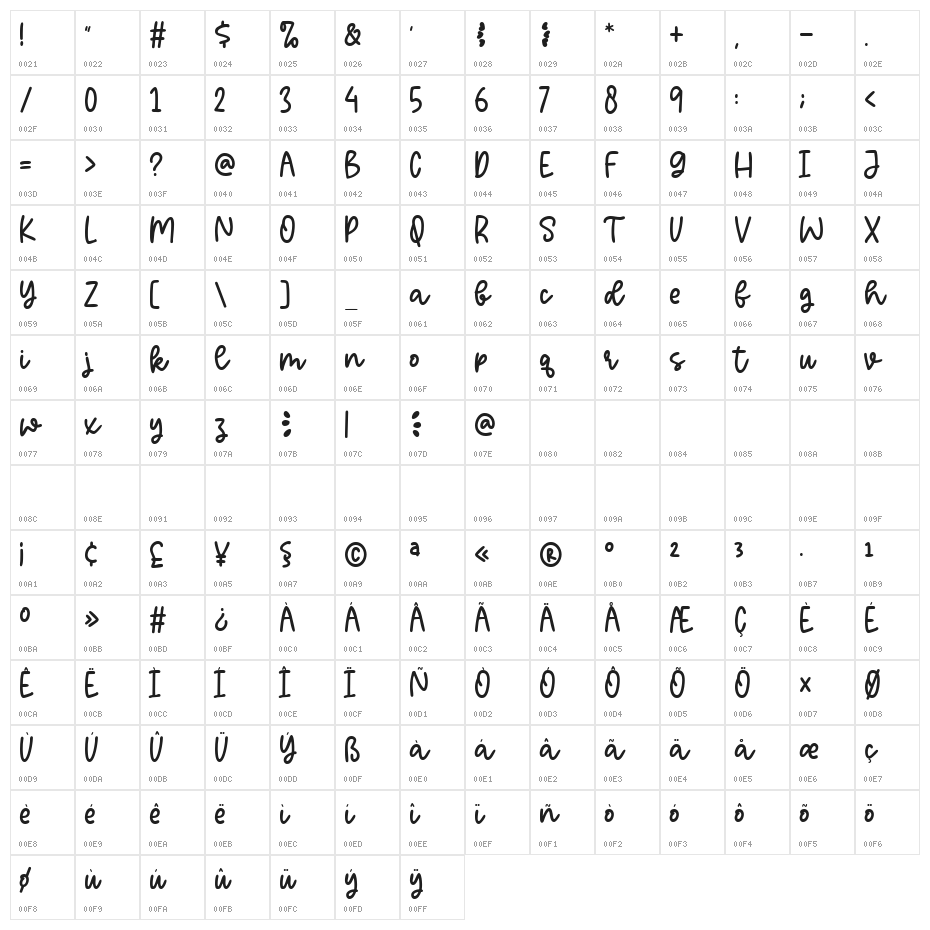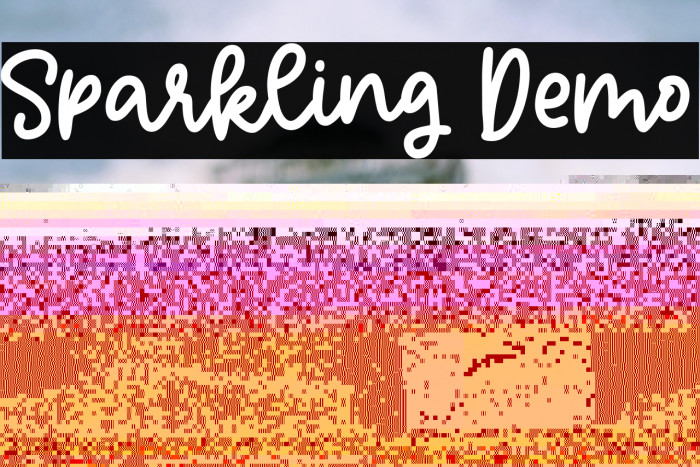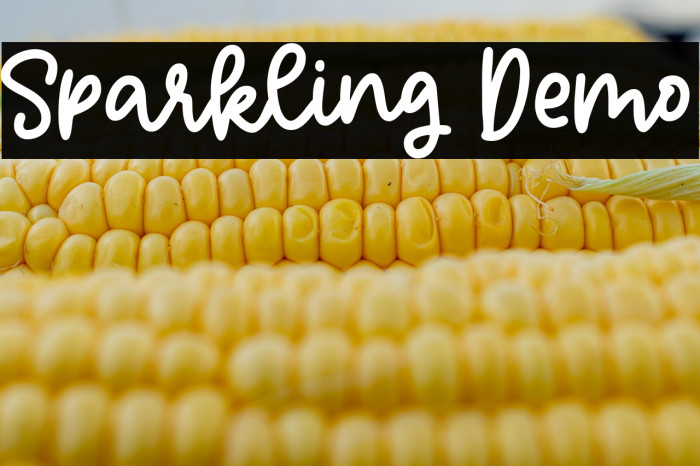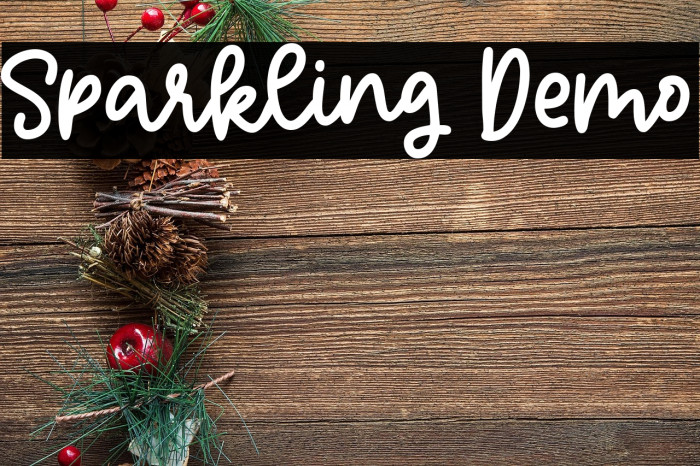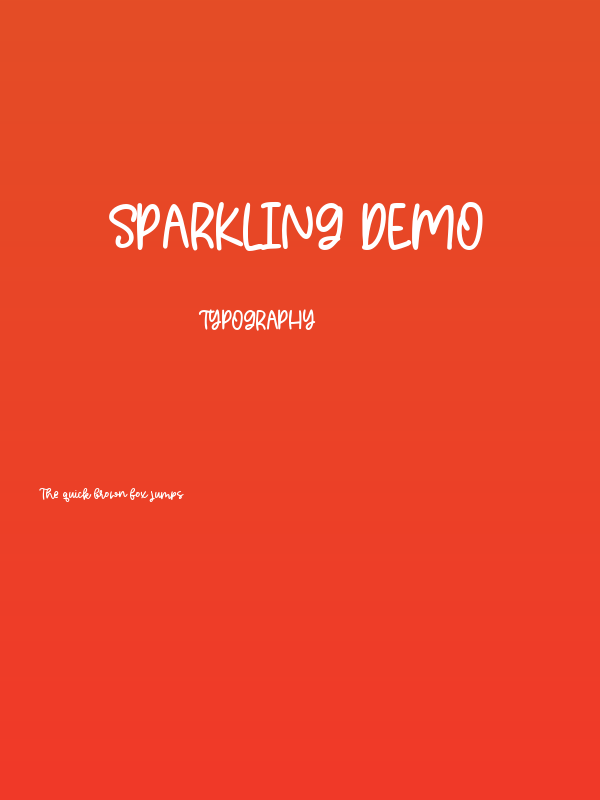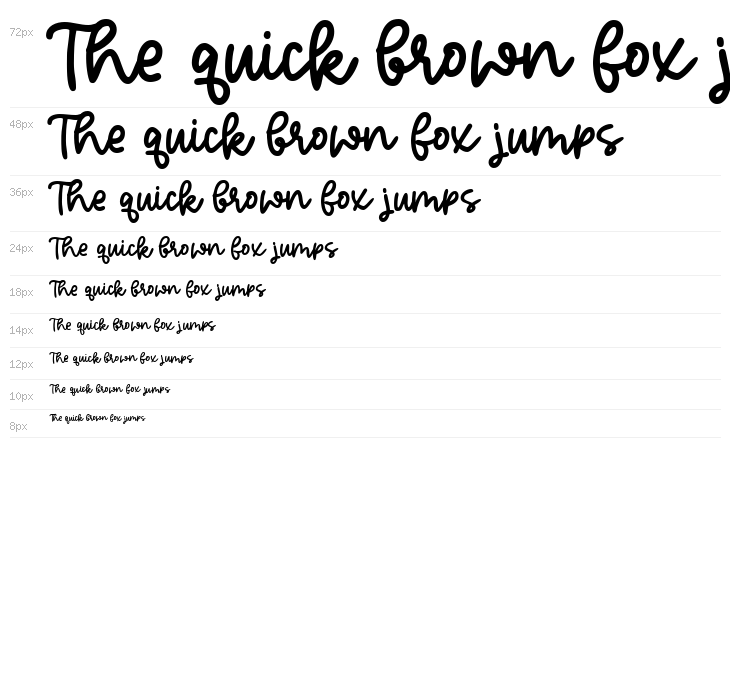
Sparkling Demo Font
Sparkling Demo Description
A playful, handwritten font with smooth curves and a casual style, featuring consistent stroke width and rounded edges.
| Use Case | Headlines, Informal text, Invitations |
| Proposed Projects | Greeting cards, invitations, casual branding. |